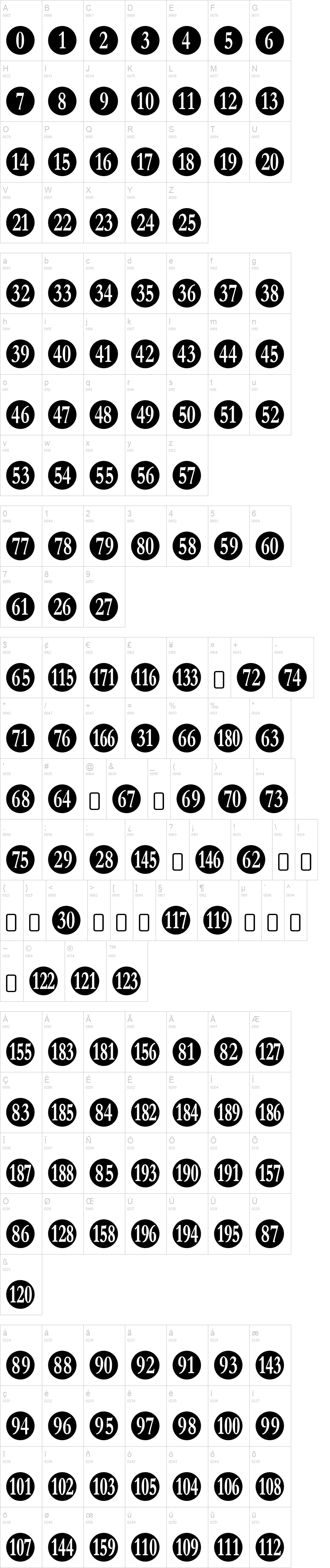
Numberpile Reversed.otfNote of the authorNumberpile is a set of circled numerals: convenient for maps & diagrams. Numberpile includes a handy guide for accessing numbers directly. If your application supports OpenType standard ligatures, you can type circled numbers by surrounding them in parentheses. For example: typing (100) will convert automatically to a circled 100.